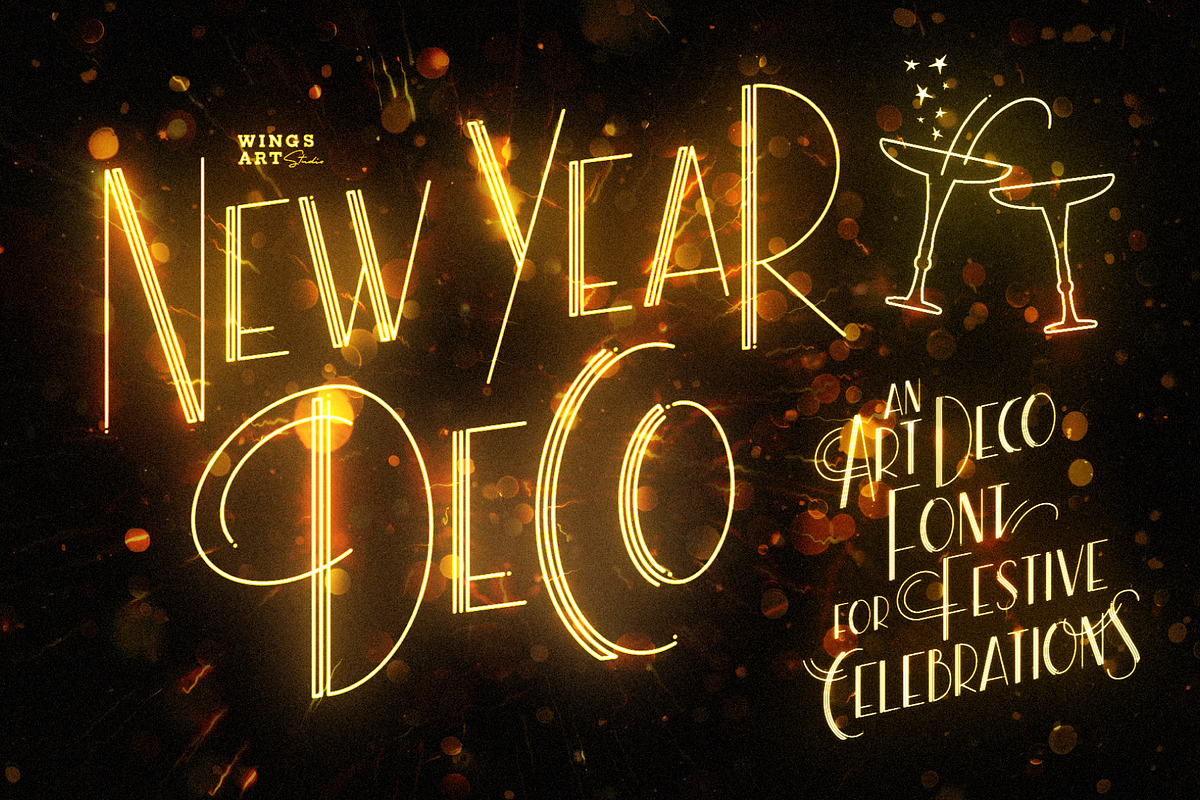
New Year Deco – Art Deco Festive Font is perfect for New Year's Eve celebrations, Art Deco party invitations, vintage festive designs, glamorous event promotions, luxury celebration materials, elegant holiday campaigns, sophisticated party graphics, upscale venue branding, premium celebration packaging, festive luxury products, elegant seasonal marketing, and distinguished holiday communications.
New Year Deco – Art Deco Festive Font is exciting because it captures the glamorous sophistication and celebratory elegance of the roaring twenties through its stunning Art Deco letterforms that embody the luxury, optimism, and festive grandeur of New Year celebrations in the golden age of style. This magnificent typeface features geometric Art Deco styling with festive flourishes that evoke the sparkle of champagne, the glamour of midnight celebrations, and the timeless elegance of sophisticated party culture. The font's festive aesthetic creates instant connections with audiences who appreciate luxury celebrations, vintage glamour, and the sophisticated joy of elegant festivities.
New Year Deco – Art Deco Festive Font includes comprehensive font families: Regular Celebration Style, Bold Glamorous Weight, Light Elegant Touch, Medium Festive Balance, Italic Flowing Grace, Condensed Party Format, Extended Gala Width, Decorative Sparkle Version, Shadow Luxury Effects, and Special Celebration Symbols, providing complete solutions for festive and Art Deco design projects that celebrate luxury, elegance, and sophisticated celebration culture.
This glamorous typography solution transforms ordinary communications into sophisticated celebration experiences through its authentic Art Deco aesthetic and festive design language. New Year Deco – Art Deco Festive Font Free Download enables designers and luxury brands to access premium celebration typography that instantly adds glamour, sophistication, and festive elegance to any creative project. The font's carefully crafted Art Deco elements ensure authentic vintage character while maintaining excellent readability and distinctive celebratory presence.
Luxury venues, event planners, and upscale celebration businesses trust New Year Deco – Art Deco Festive Font for its ability to communicate sophistication, glamour, and elegant celebration to audiences seeking premium festive experiences and luxury celebration aesthetics. The typeface's glamorous construction performs beautifully across various applications, from intimate celebration communications to large-scale luxury event campaigns. Its extensive character support includes multilingual capabilities and Art Deco design elements that enhance sophisticated celebration brand presentations.
The creative inspiration behind New Year Deco – Art Deco Festive Font draws from the golden age of Art Deco design, vintage celebration culture, and the timeless glamour of sophisticated New Year's Eve parties that continue to define luxury celebration aesthetics. This elegance-focused approach creates a font that feels genuinely glamorous while maintaining contemporary appeal across different celebration contexts and luxury brand expressions.